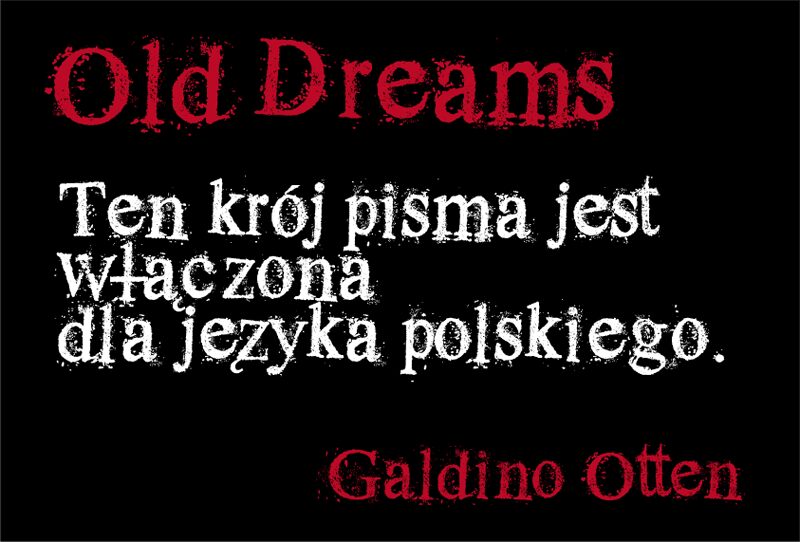
Old Dreams by Galdino Otten is a free distressed serif display font. Classical letter shapes carry chipped patches, speckled edges, and uneven ink like type pulled from a worn printing plate.
Themes of memory, decay, and rediscovered print are especially suited to its rough surface. It can lend period texture to book covers, music posters, and historical event graphics without elaborate ornament. On coffee packaging or an antique shop label, the damaged print becomes part of the product identity rather than an afterthought.